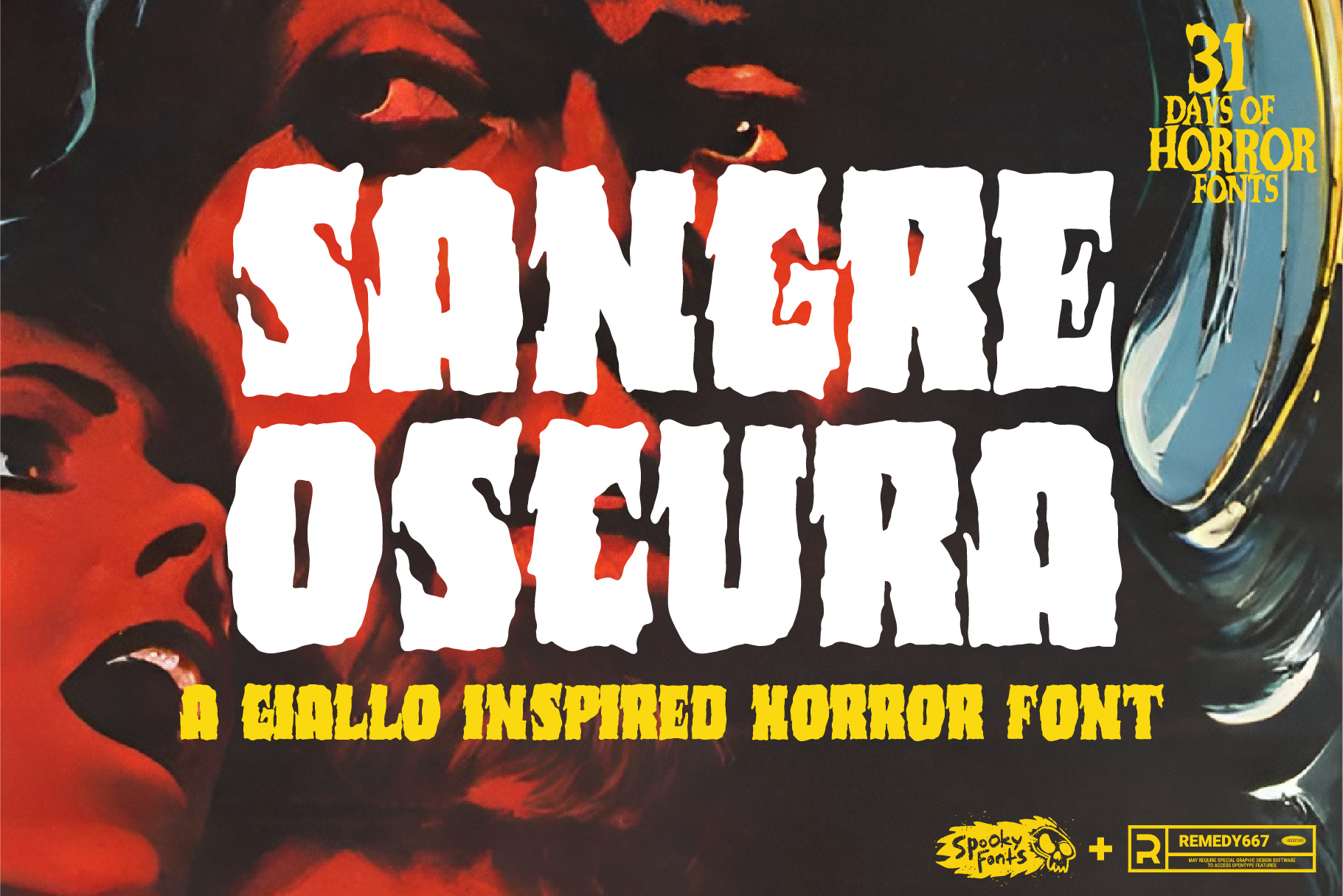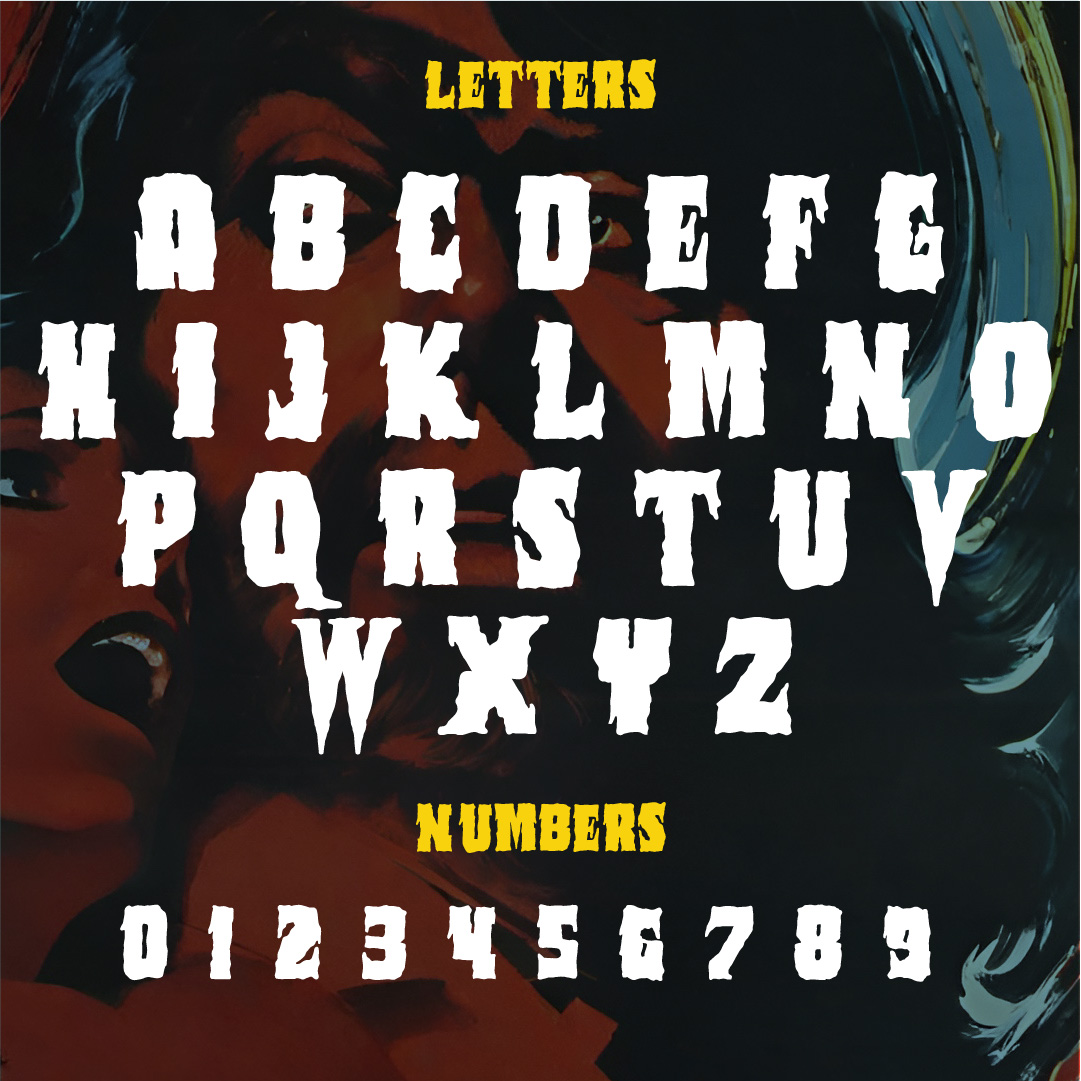
Introducing Sangre Oscura, a menacing typeface straight from the depths of vintage 70s foreign horror movies. This eerie and captivating font will transport your designs into a world of chilling dread. With its spine-chilling curves and hauntingly beautiful serifs, Sangre Oscura is perfect for adding a touch of macabre to your posters, album covers, book titles, or any other creative project. Prepare to unleash the dark magic of horror onto your designs!
Crafted with meticulous attention to detail, Sangre Oscura strikes the perfect balance between elegance and terror. Its elaborate letterforms dance on the edge of sanity, exuding an aura that commands attention and sends shivers down one’s spine. Each character in this typographic nightmare captures the essence of classic foreign horror films from decades past, embodying their unsettling visuals and eerie atmosphere.
Dare to be different with Sangre Oscura! Unlike ordinary typefaces that fail to ignite fear within viewers’ hearts, this font possesses an unworldly power capable of captivating audiences like never before. Watch as heads turn in awe at the sheer audacity exhibited by this wicked creation as it breathes life into every word you write or display. Unleash your inner cryptkeeper with Sang